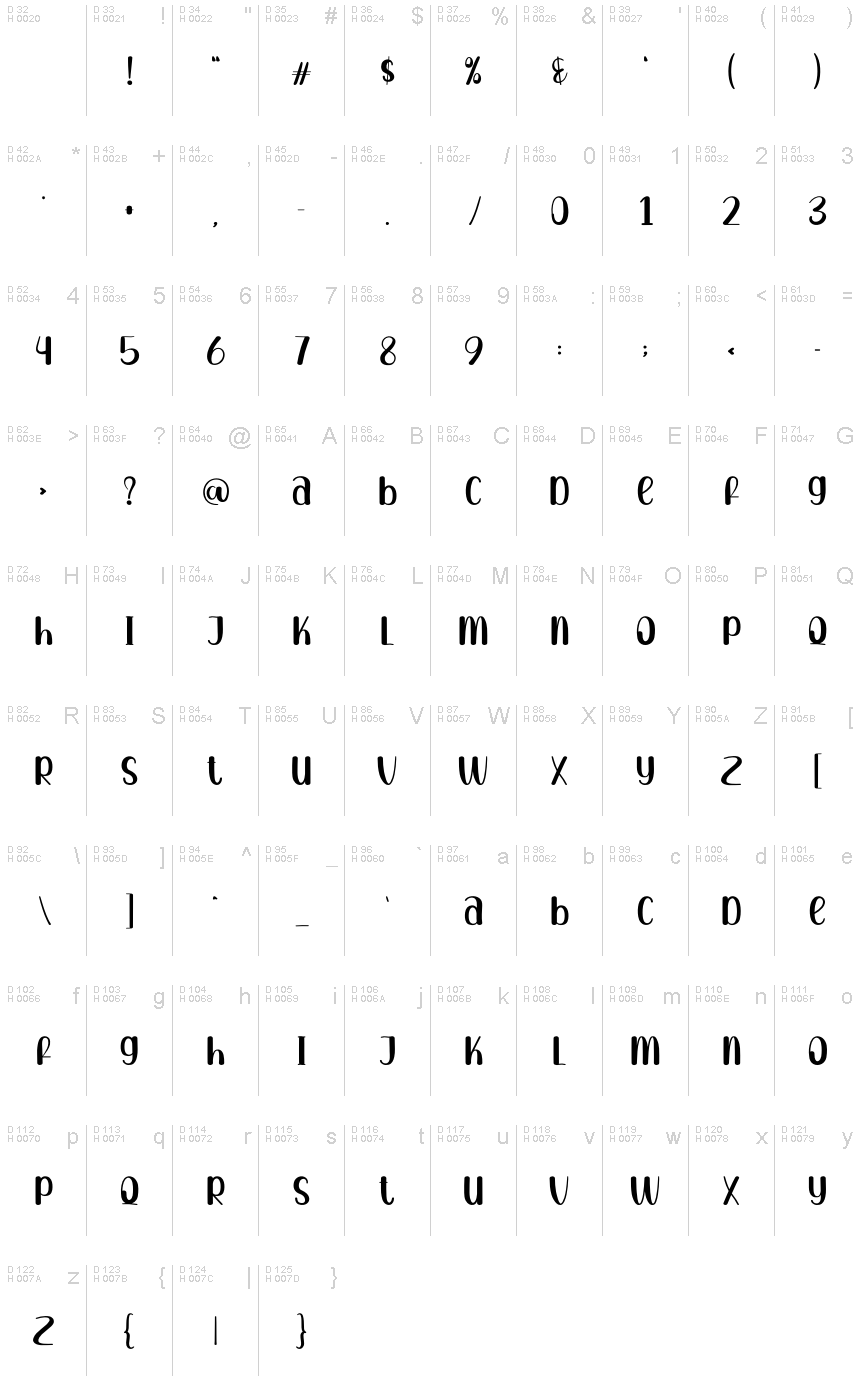
Relatives
Relatives is a captivating brush font designed by Andi Moz. Its organic, handwritten aesthetic evokes a sense of warmth and personality, making it a versatile choice for a wide range of design applications. The flowing, expressive strokes and irregular letter forms lend a unique, handcrafted feel to any project, whether it's a rustic branding identity, a heartfelt greeting card, or a playful editorial layout.
Relatives' adaptability and distinctive charm make it a powerful tool for designers seeking to infuse their work with a touch of character and individuality.